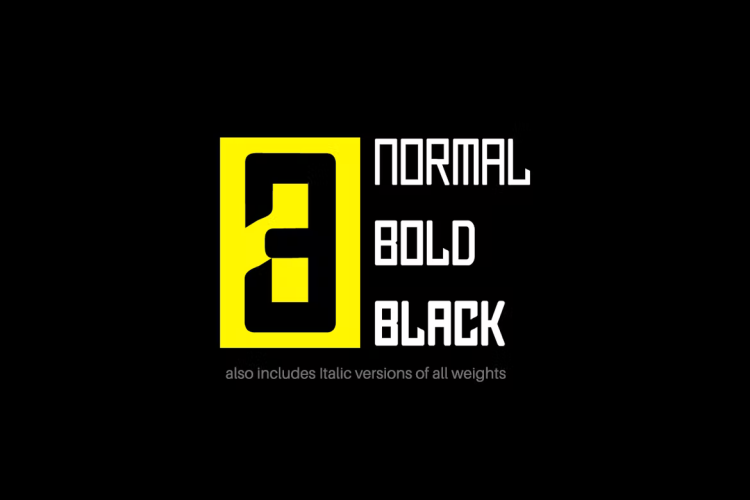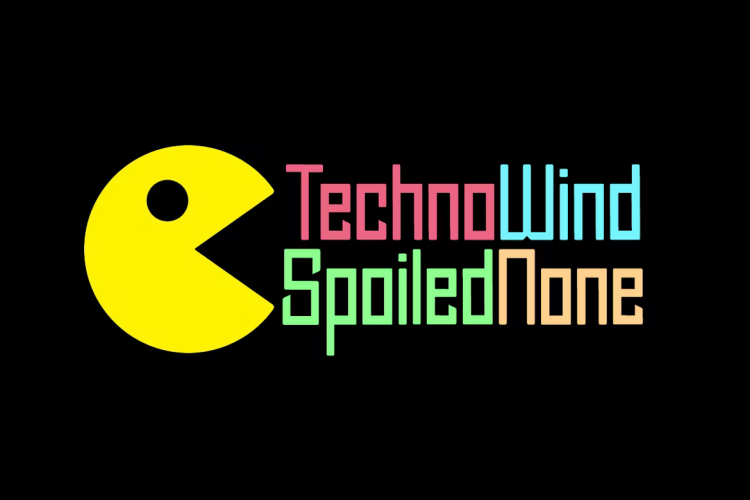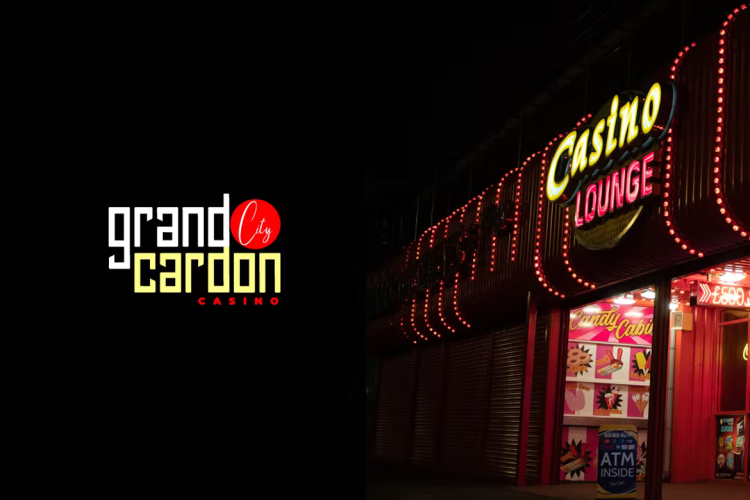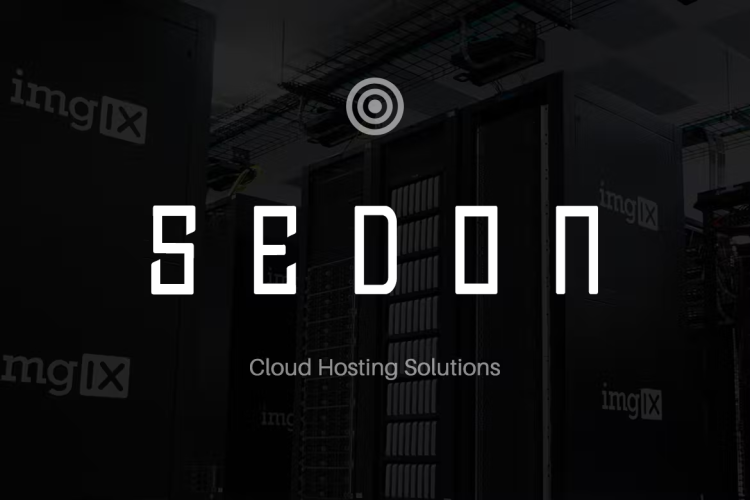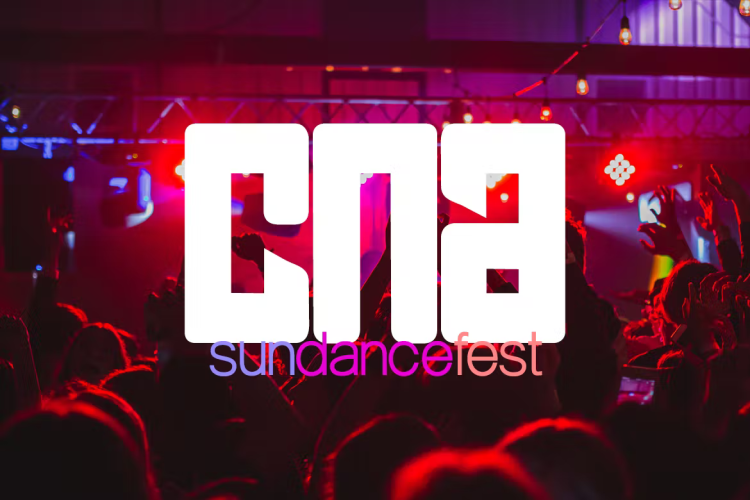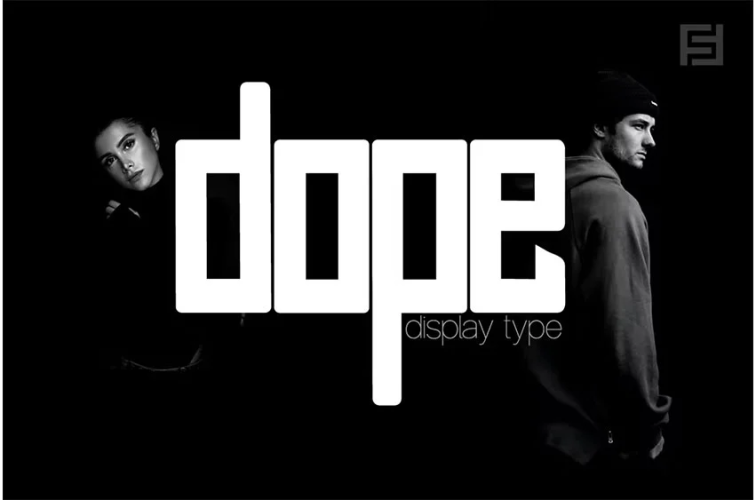
DOPE Font
DOPE Font is a unique typeface perfect for headlines, big text, branding, logotypes & display usage. This font can be an excellent choice for creating outstanding logos, promotional content, and marketing graphics that can bring uniqueness and freshness.
The typeface will be perfect for creating unique monograms, logos, and identities with these combinations. Please see the examples shown above to get an idea of the capability of this typeface.
The typeface comes with Extended Latin character sets including Western European, Central European, and South-Eastern European character sets (a total of 281 glyphs).
Headlines and titles
DOPE Font has enough character to carry a headline on its own; set it large and keep the supporting text plain.
Brand and product names
Short strings are where this typeface is strongest — a name, a label, a cover line.
Social and video graphics
Set DOPE Font over a flat colour or a quiet photograph so the letterforms stay the focus.